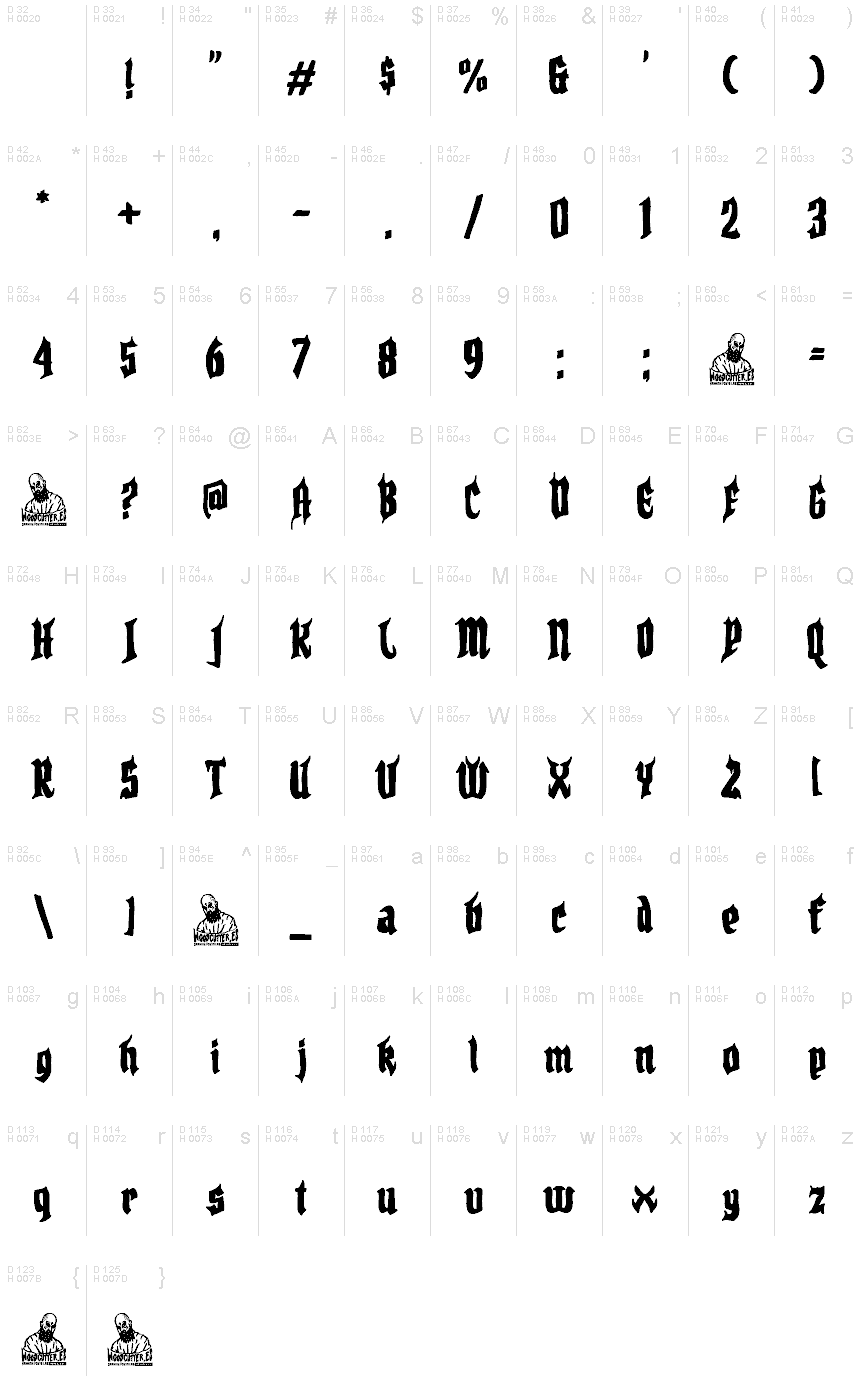
Dolce Inferno
Dolce Inferno font is a bold, condensed gothic typeface from Woodcutter. Gothic and medieval vibes take over this font’s letters that create outstanding ornamental forms. With its dramatic and strong presence, the font can easily be characterized as a display one that autos-stand out whenever it is placed.
This free gothic font was created with headlines in mind as well aw logos, posters, branding design items such as labels and packaging. Further use cases include some print projects (magazine covers), digital ones (websites), or even animation projects due to an overall mystical/horror atmosphere.